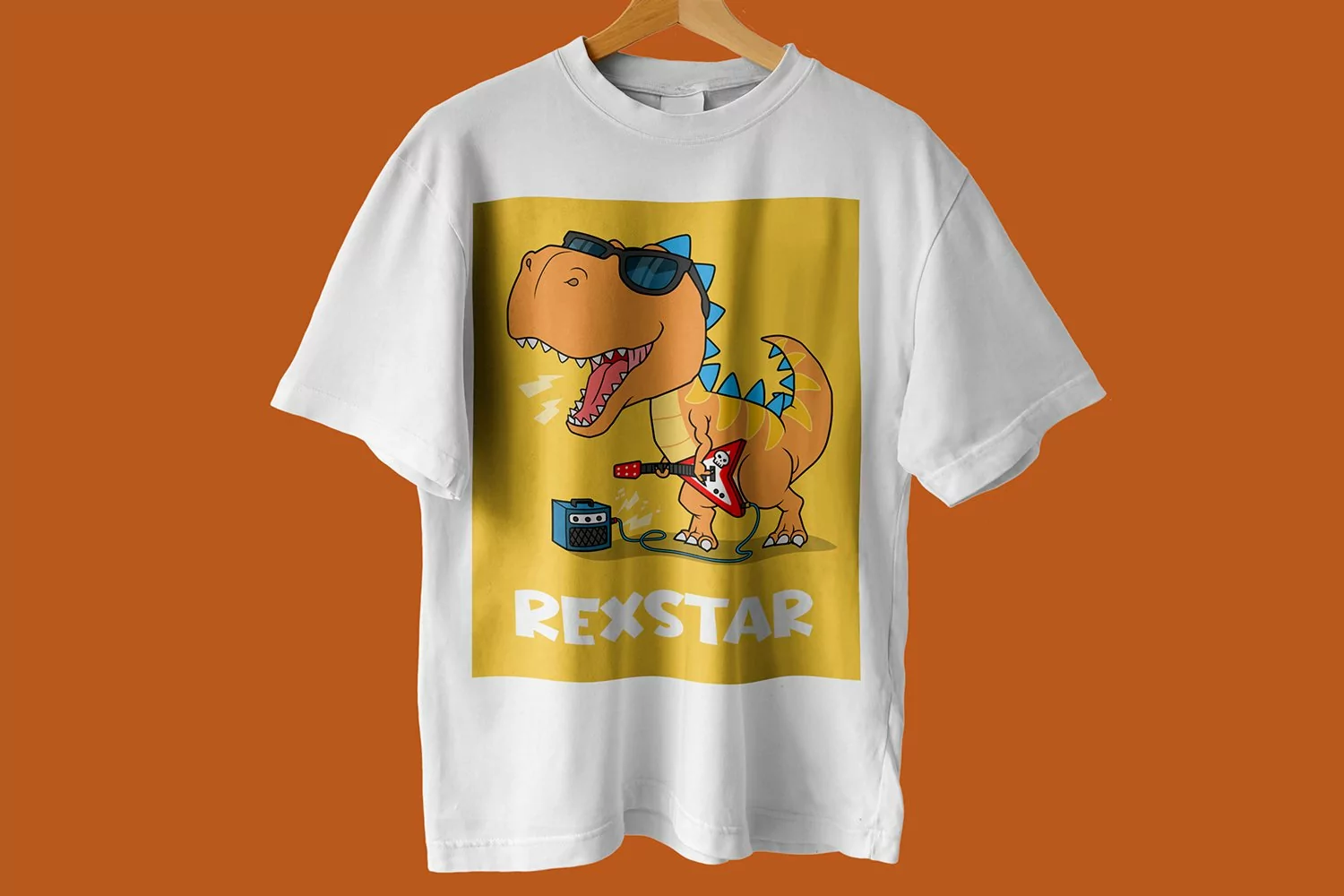
Gallery - Playful Comic Font that contain lowercase, uppercase, symbol, and also support multi language. There’s a lot ligatures in this font. This Font also comes with ligatures, alternates and many more. this font suitable for fashion, branding, catalog and other design what you want.